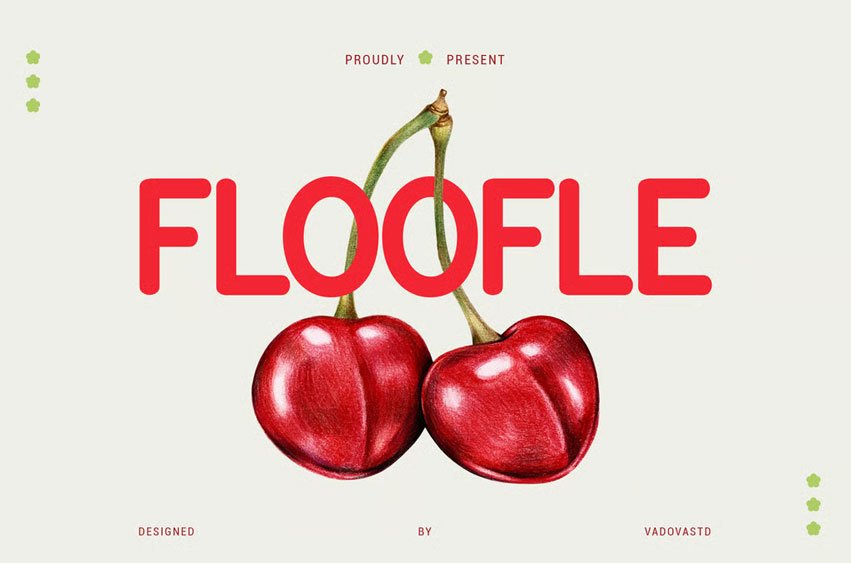
Floofe Creative Font is a bold and juicy display font bursting with fruity personality and creative charm. With its rounded forms, vibrant colors, and playful presence, Floofle is perfect for food packaging, product campaigns, cosmetic branding, and cheerful marketing visuals. Whether it’s cherry, apple, or mooncake themes, this font captures the essence of taste and freshness—ideal for brands looking to make a fun, flavor-filled impression.